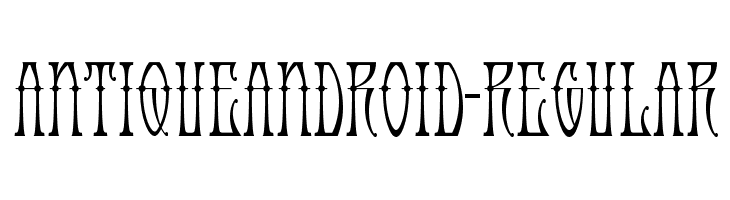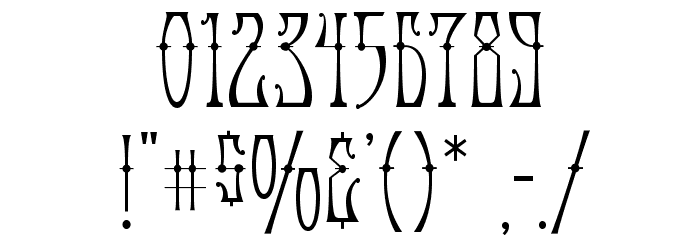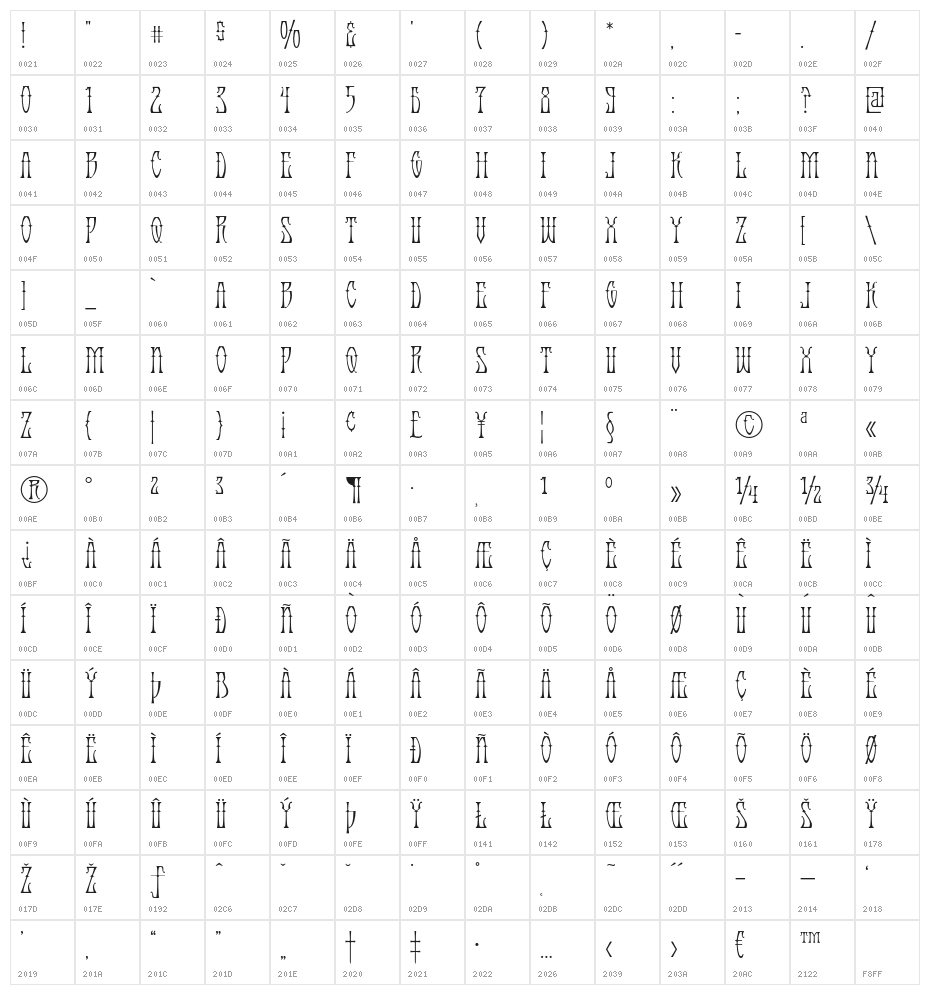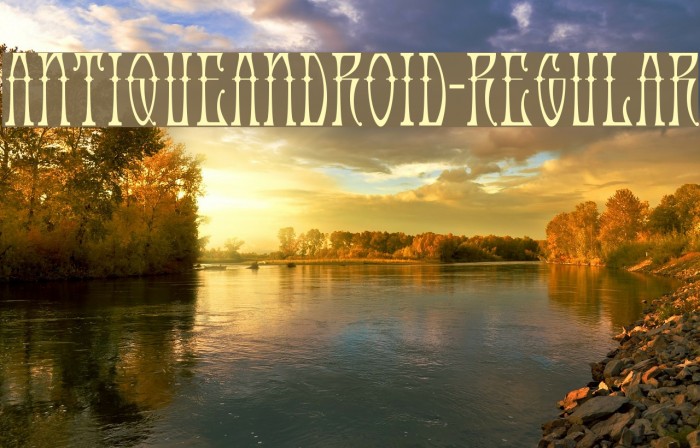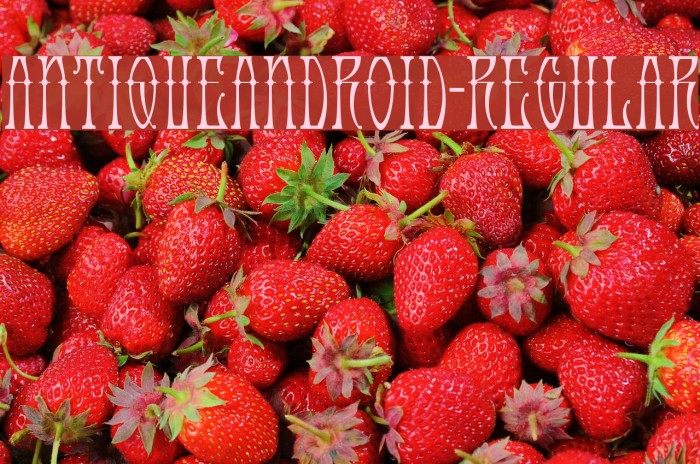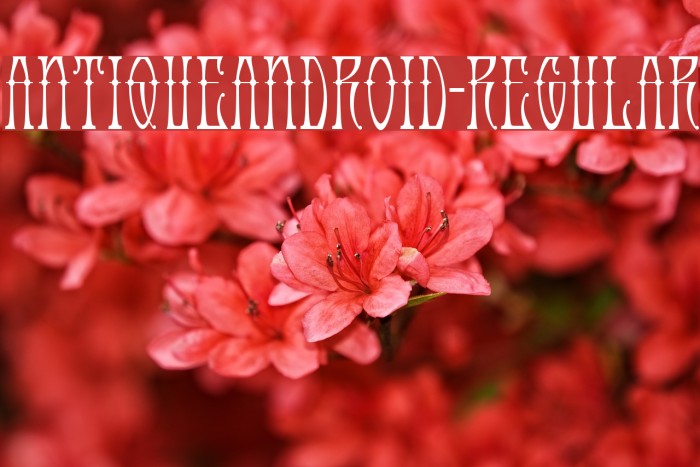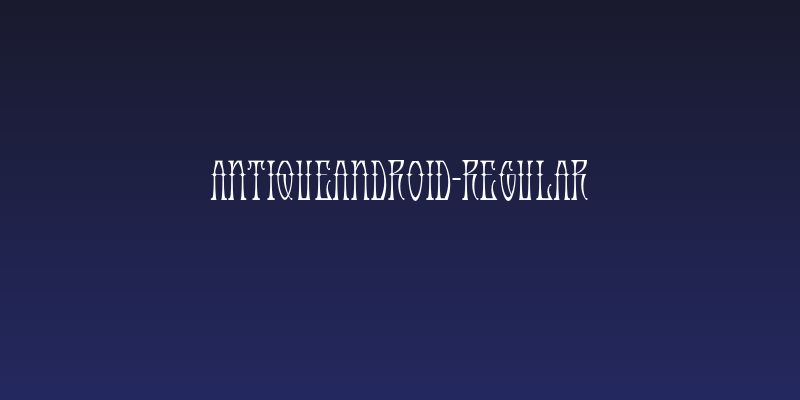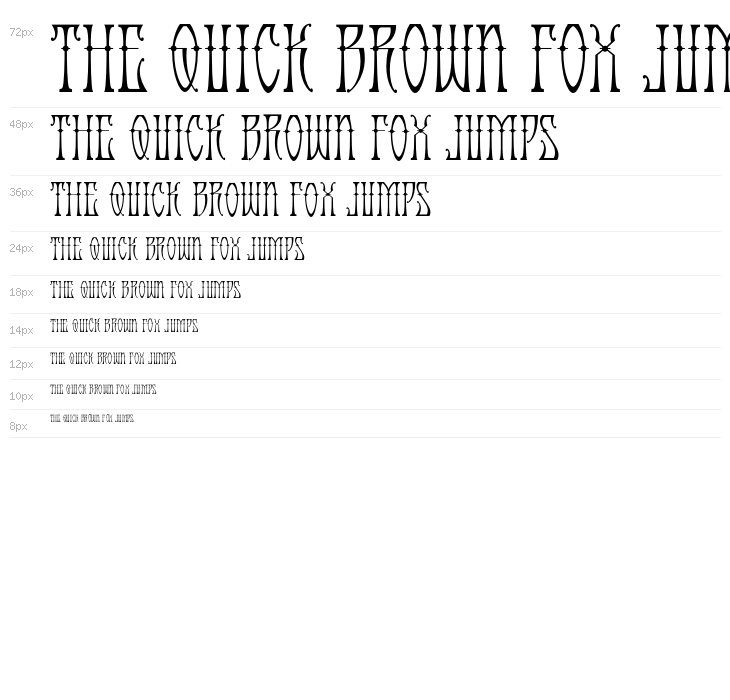
AntiqueAndroid-Regular Font
AntiqueAndroid-Regular Description
This font features a unique blend of vintage and futuristic elements, characterized by its elongated and narrow letterforms. The vertical strokes are prominent, with subtle curves and sharp edges that give it a distinct, almost mechanical appearance. The uppercase and lowercase letters maintain a consistent style, while the numerals and special characters complement the overall aesthetic. The font's design is reminiscent of early 20th-century typefaces, yet it incorporates modern twists that make it suitable for contemporary use.
| Overall Style | Vintage, Futuristic |
| Proposed Projects | Ideal for retro-themed posters, sci-fi book covers, branding for tech companies, and unique logo designs. |